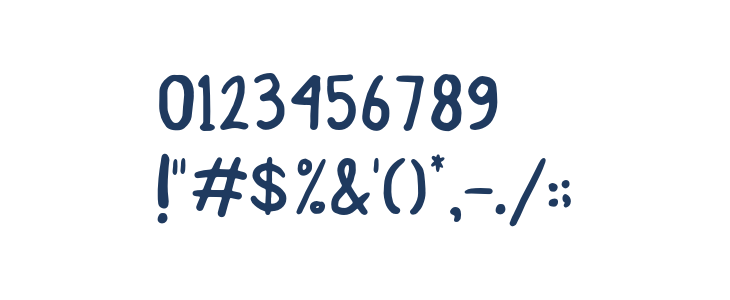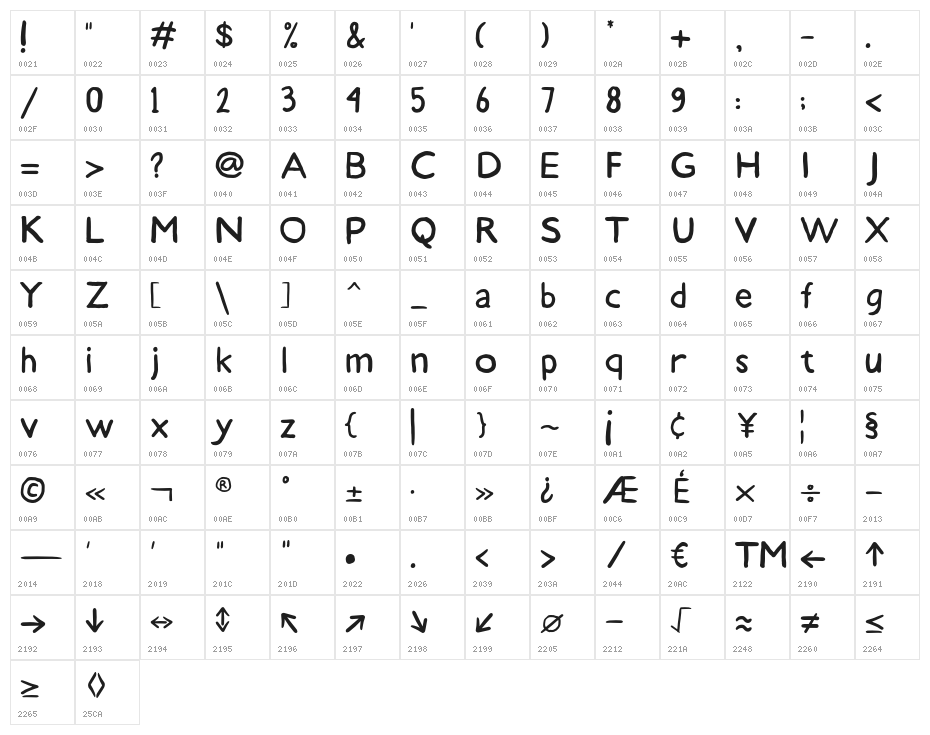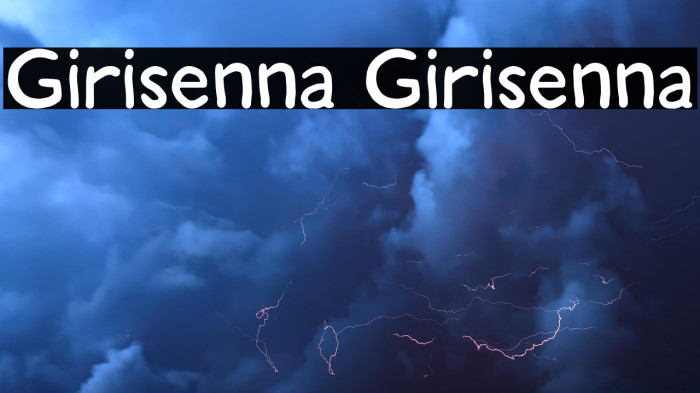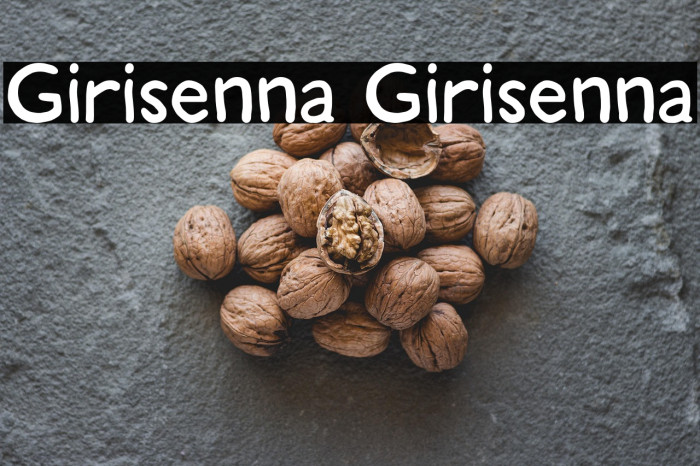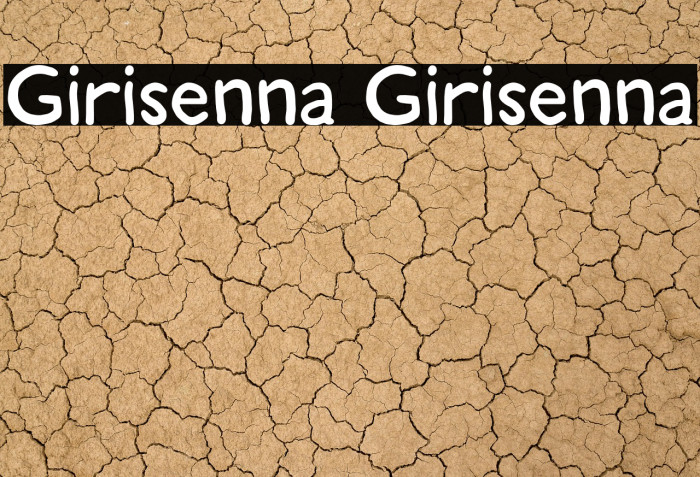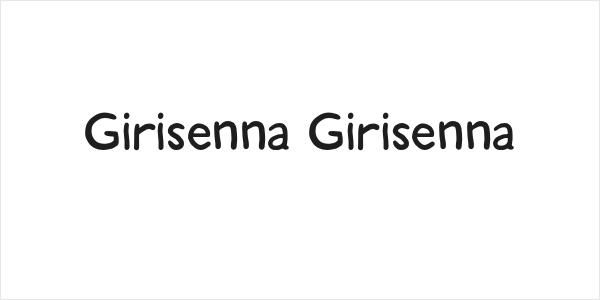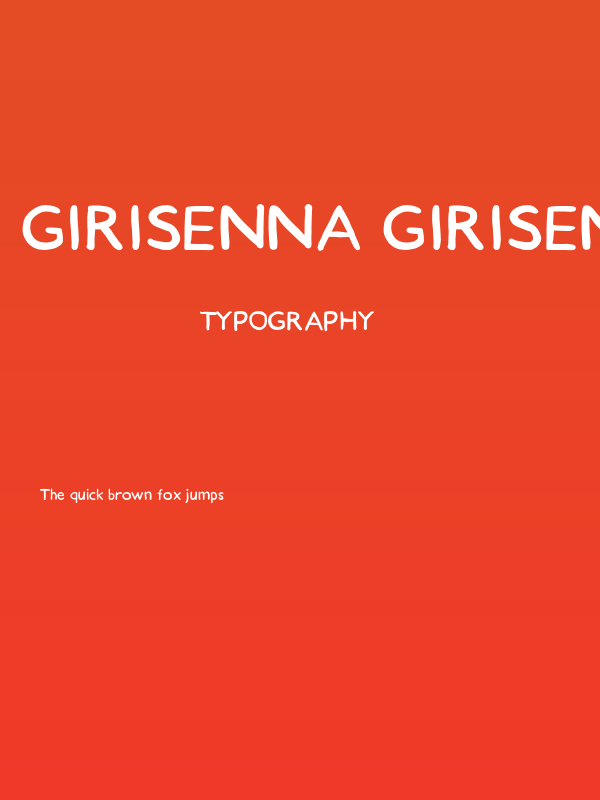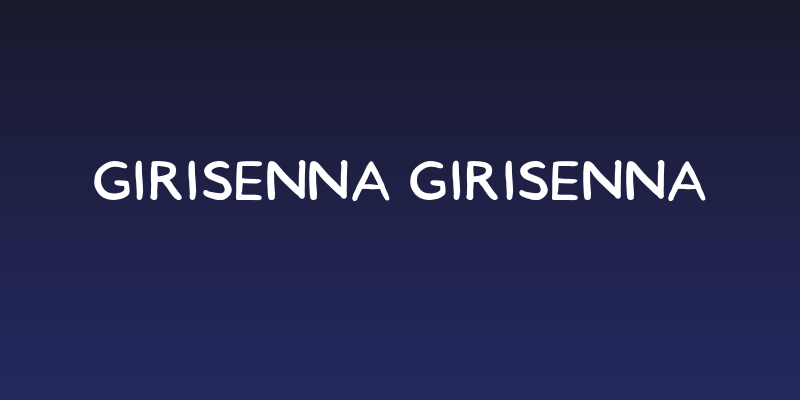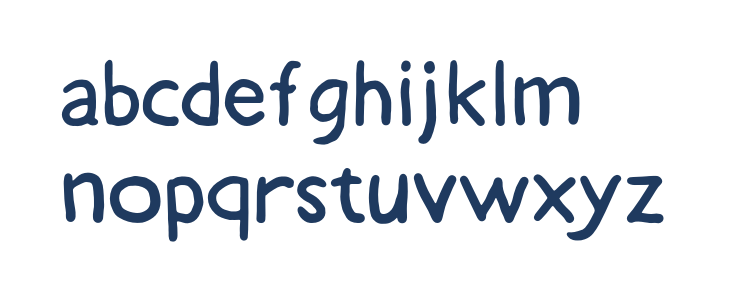
Girisenna Font
Girisenna Description
This font features a playful and casual handwritten style with rounded edges and a slightly uneven baseline, giving it a friendly and approachable appearance. The characters are bold and have a consistent stroke width, which enhances readability while maintaining a whimsical charm. The uppercase and lowercase letters are well-proportioned, and the numerals are clear and distinct. Special characters are included, adding versatility for various design needs. This font is ideal for projects that require a personal touch or a fun, informal vibe.
| Proposed Projects | Ideal for children's books, greeting cards, casual branding, and social media graphics. |